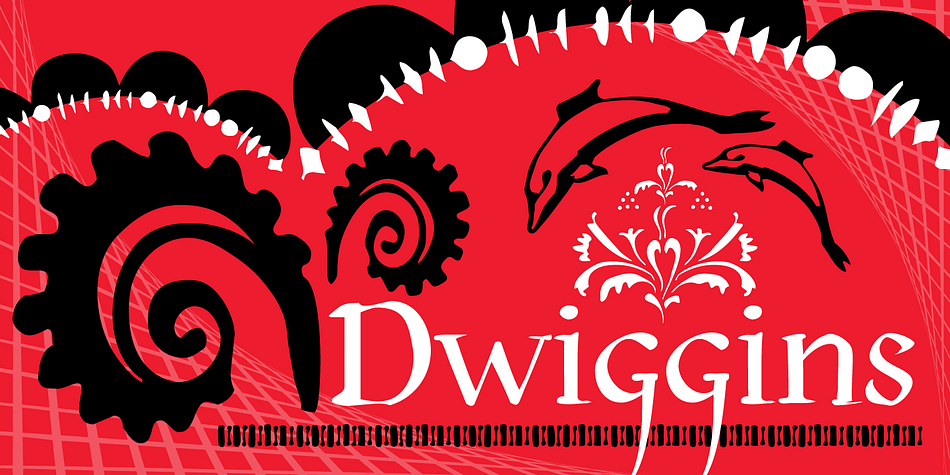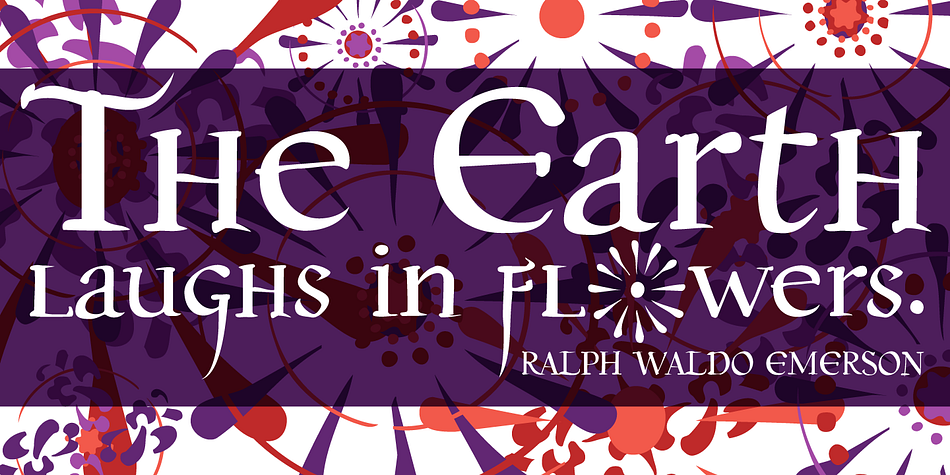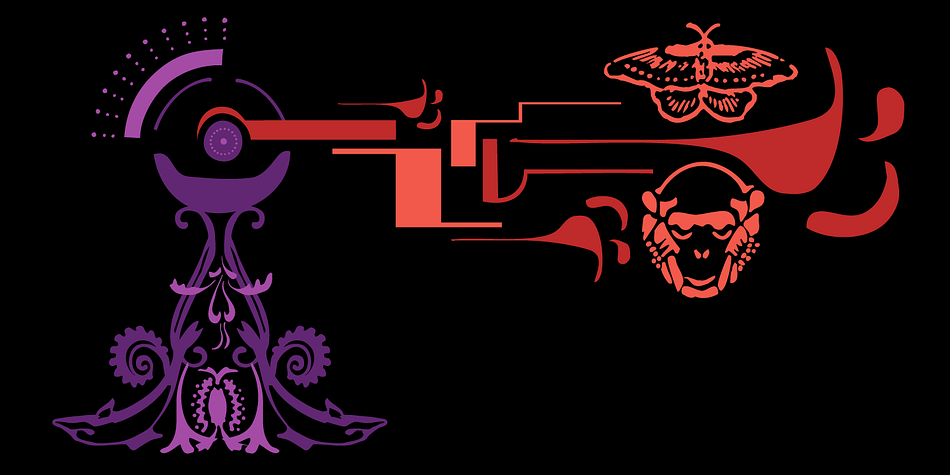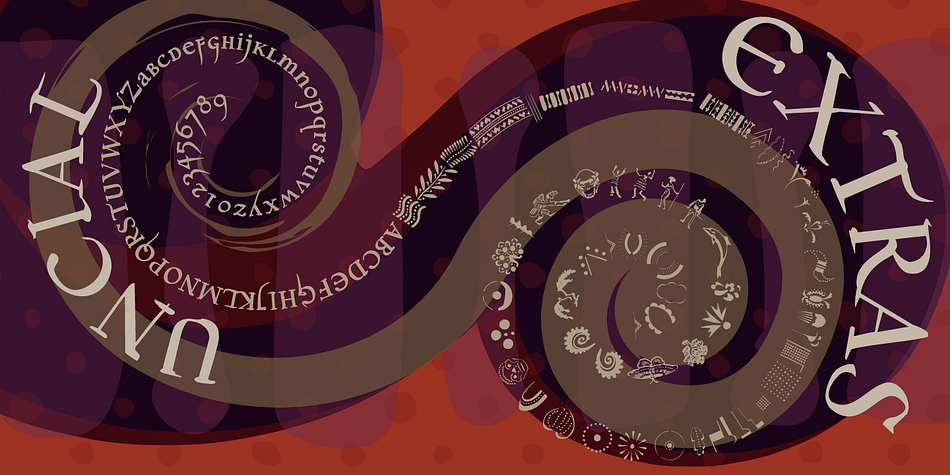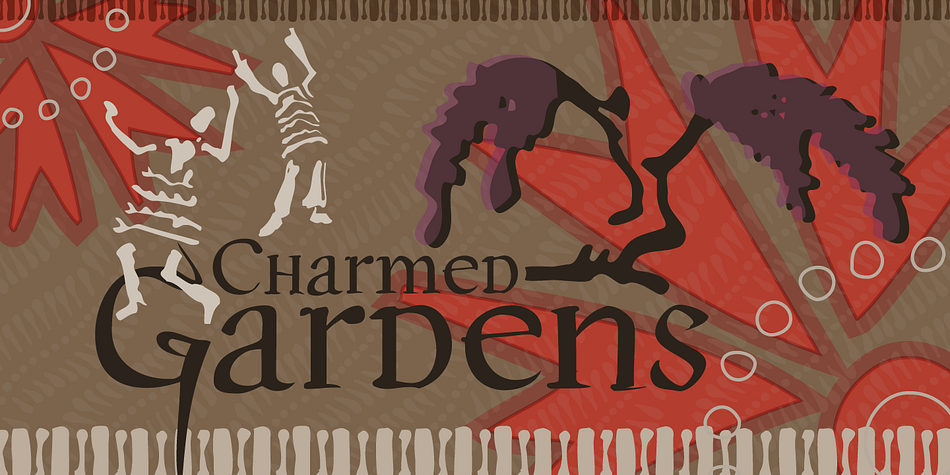
P22 Dwiggins is a dingbat, historical and serif font family. This typeface has two styles and was published by International House of Fonts.
William Addison Dwiggins was one of the premier graphic designers of the early 1900s. His book and type designs have proved to be influential and inspirational to generations of contemporary designers. The calligraphic style of Dwiggins Uncial and 62 decorative Extra make up the Dwiggins Set.